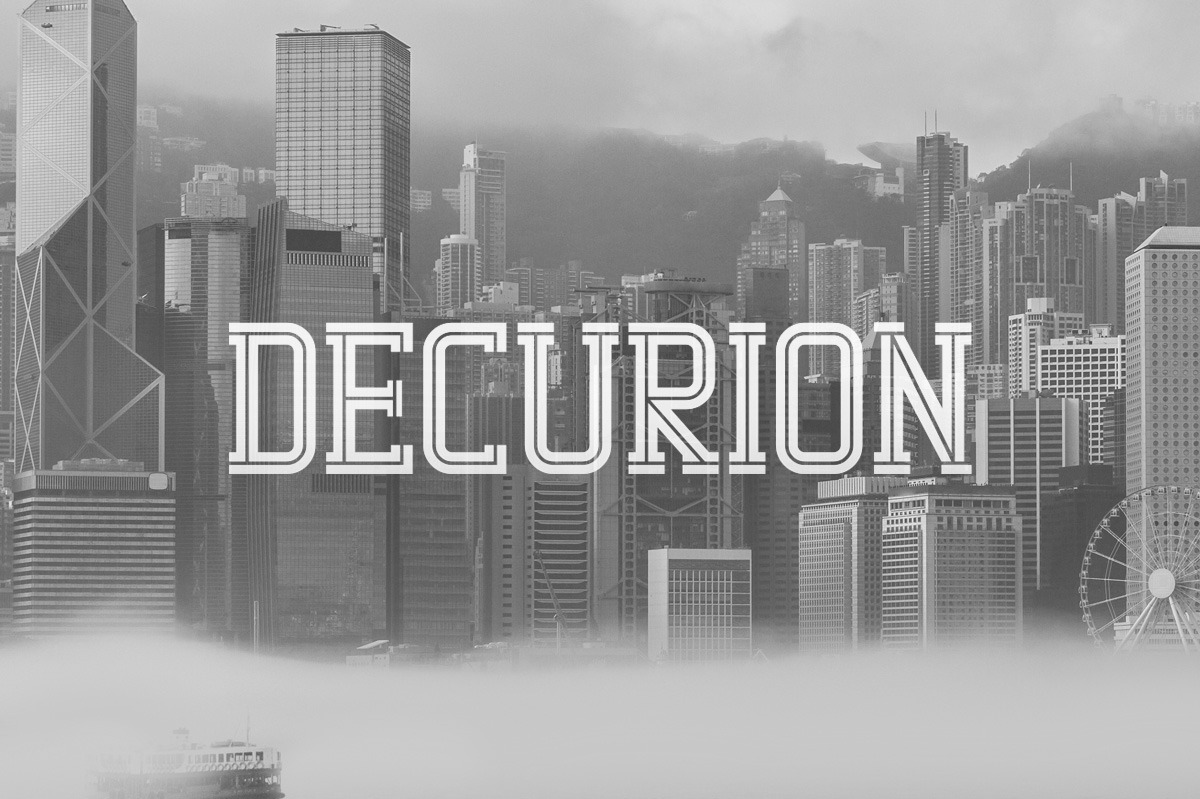
Decurion Typeface
Decurion is a slab display font with many style options. It includes uppercase letters, numbers and some punctuation. I'm especially fond of the inline version and developed it seperately from the regular version.
It's a multipurpose font and I can definitely see the outline version used in sports team brands, the line/rough versions used in vintage designs, the inline version on posters etc. Feel free to use it for all commercial purposes or make a webfont out of it.